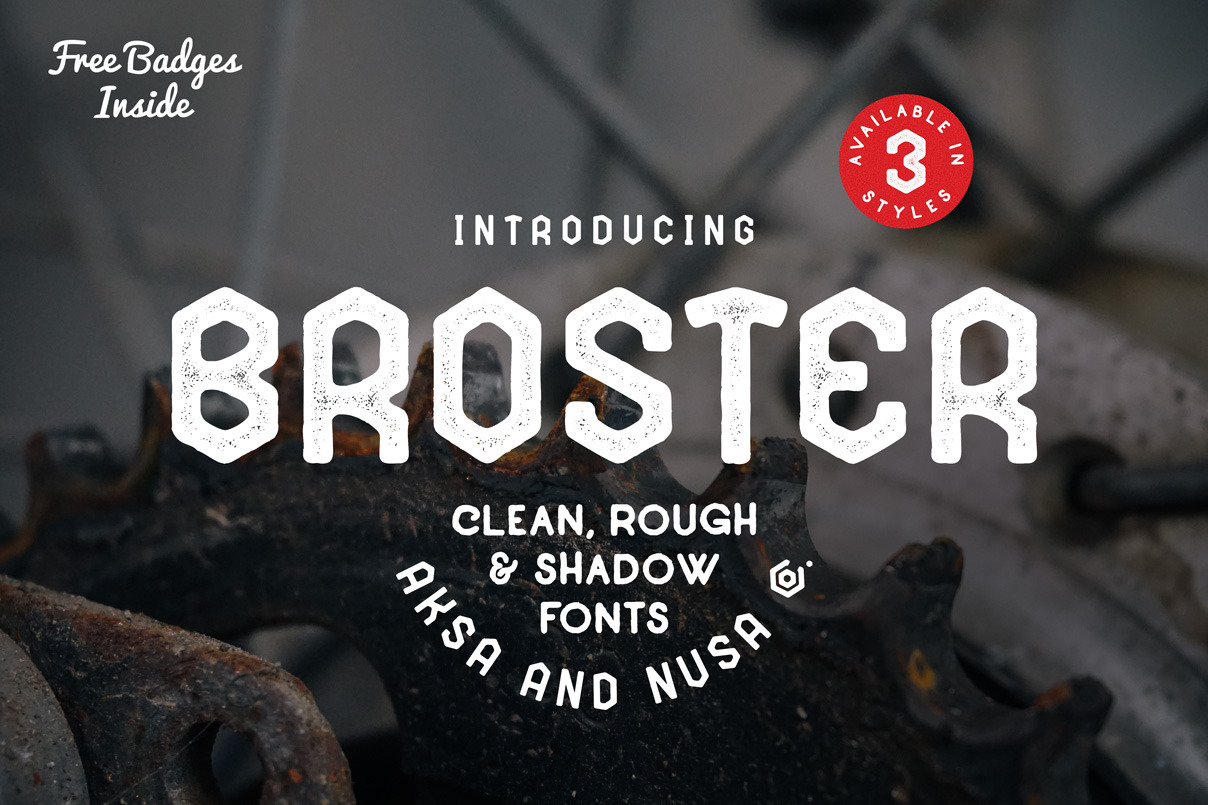
BROSTER Fonts + BONUS
Introducing...
BROSTER is modern vintage typefaces inspired from the basic shape of the nut, bolt, and vintage mechanical toy (Robot) packaging.
Perfect for poster, t-shirt graphics, typography art, apparel, labels, badges, Logo design, packaging, labels, and inspirational quotes.